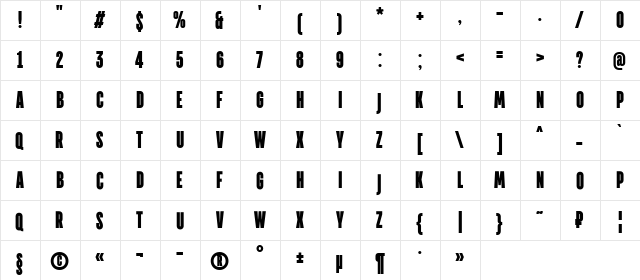
TT Directors DEMO Black Regular
Design Context for TT Directors DEMO Black Typeface
TT Directors DEMO Black offers clean, dependable letterforms without strong stylistic allegiance, making it a practical choice for designers who need flexibility.
Pro Tip: Pair TT Directors DEMO Black with a font of contrasting weight or personality to build a more expressive typographic hierarchy.